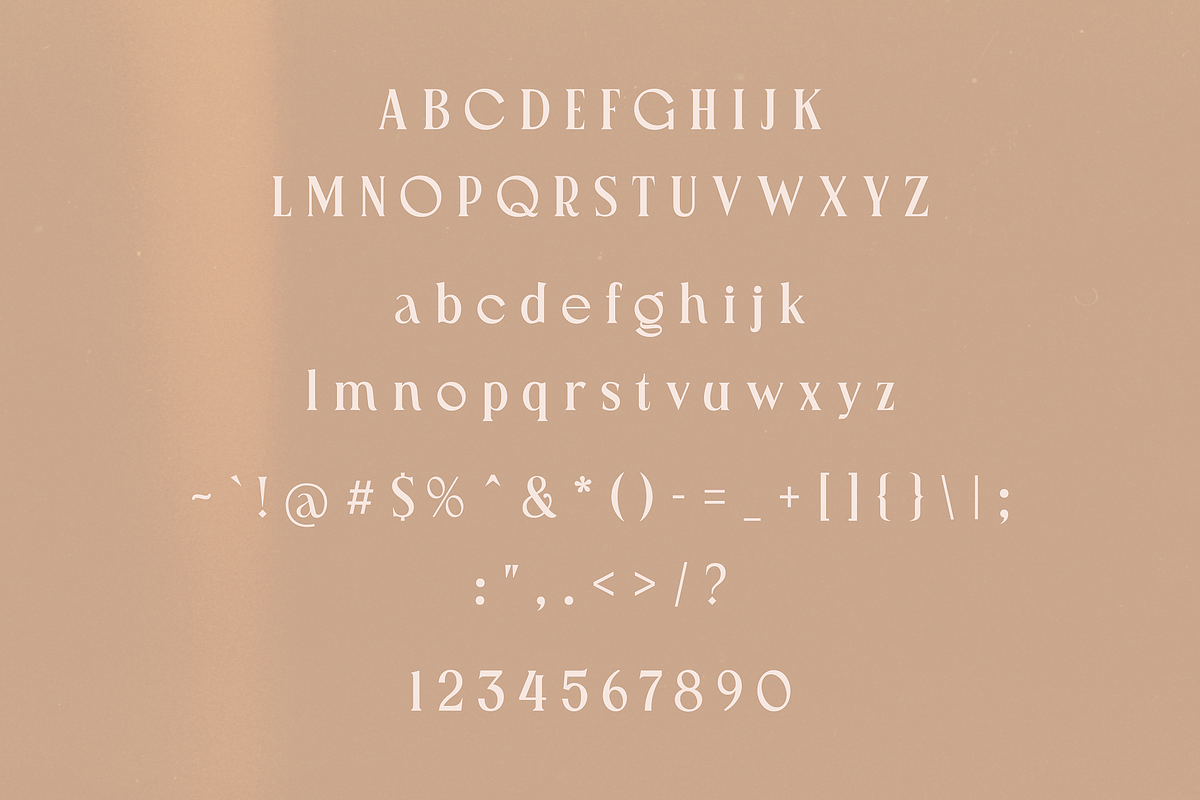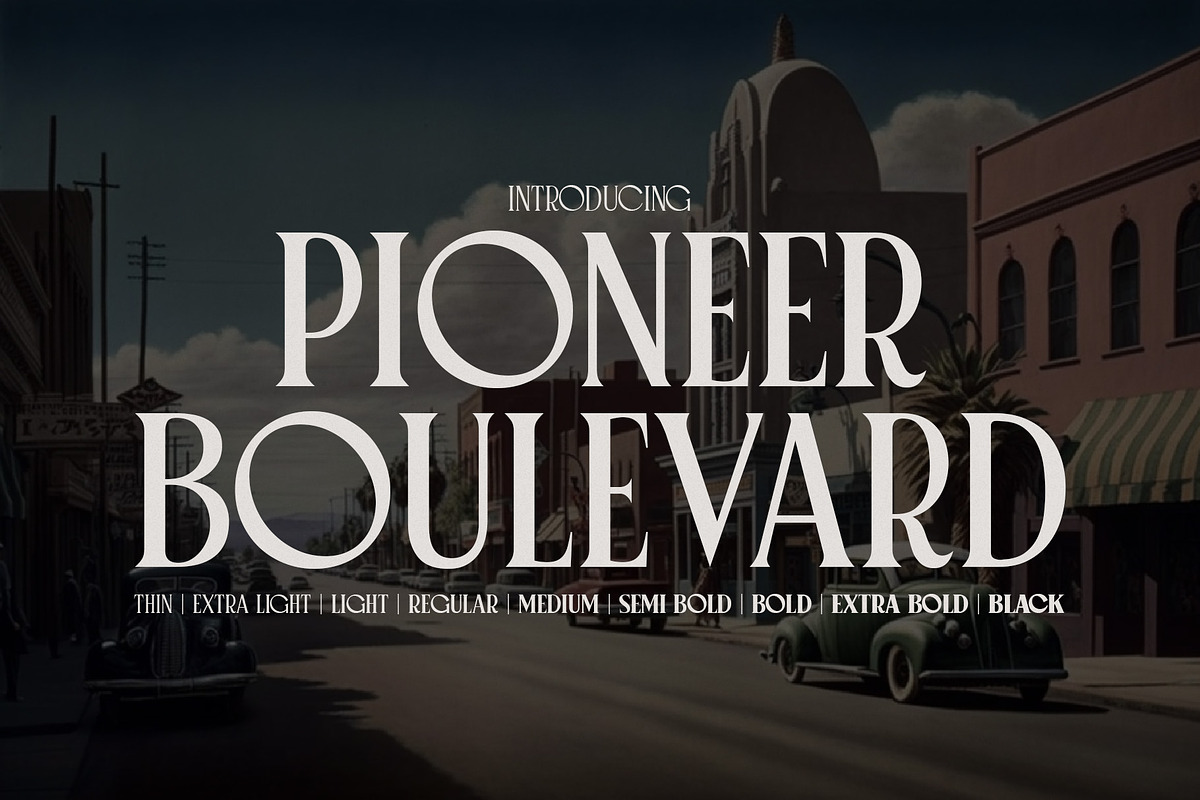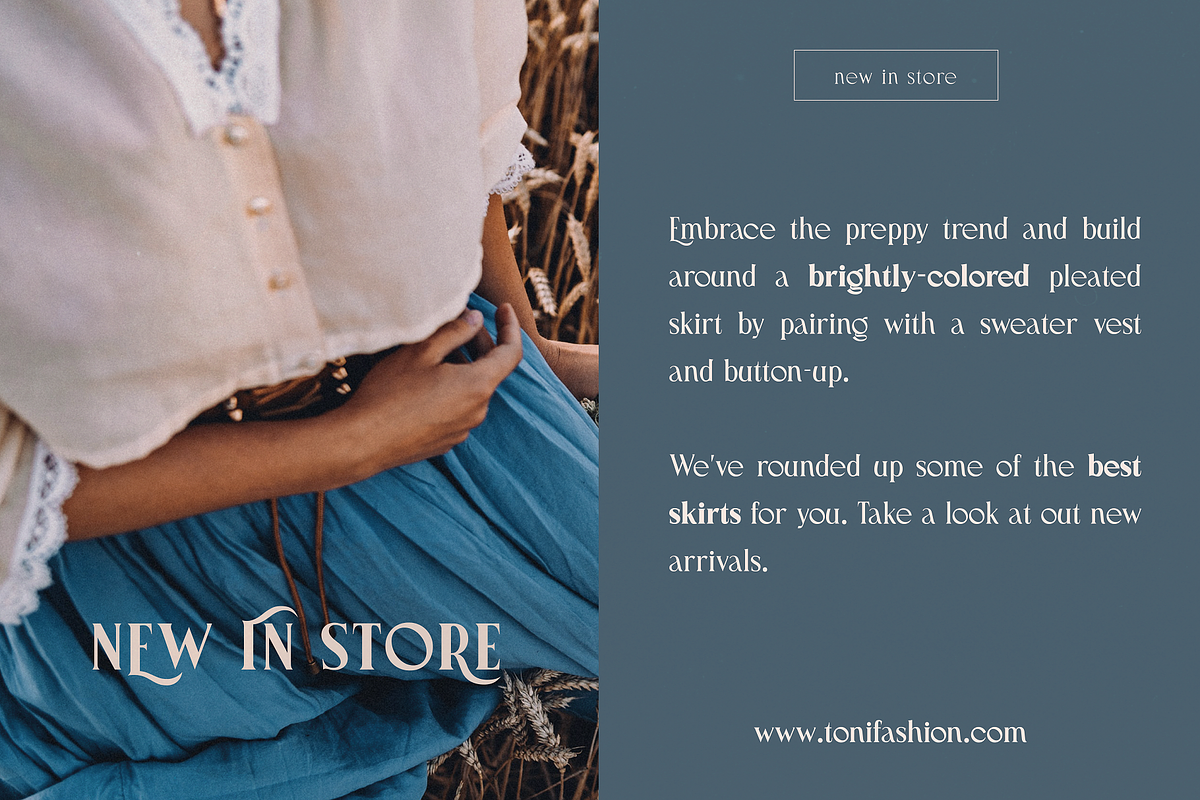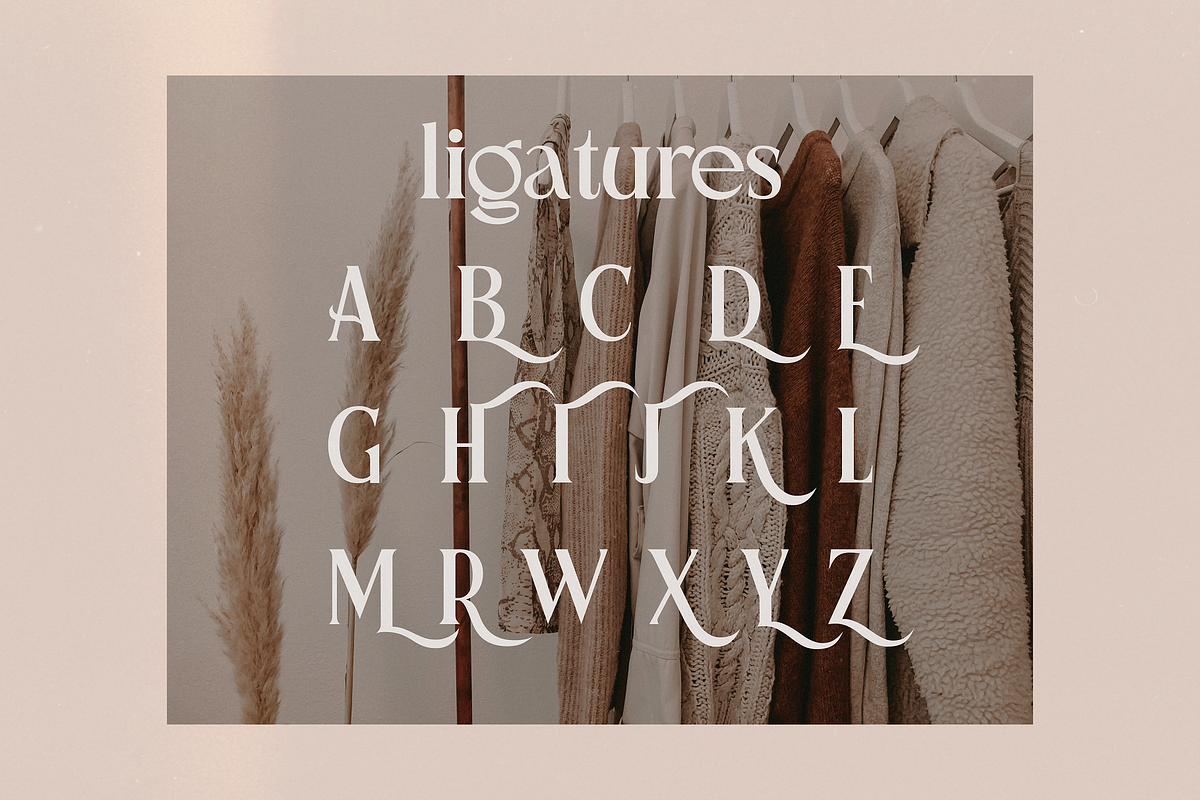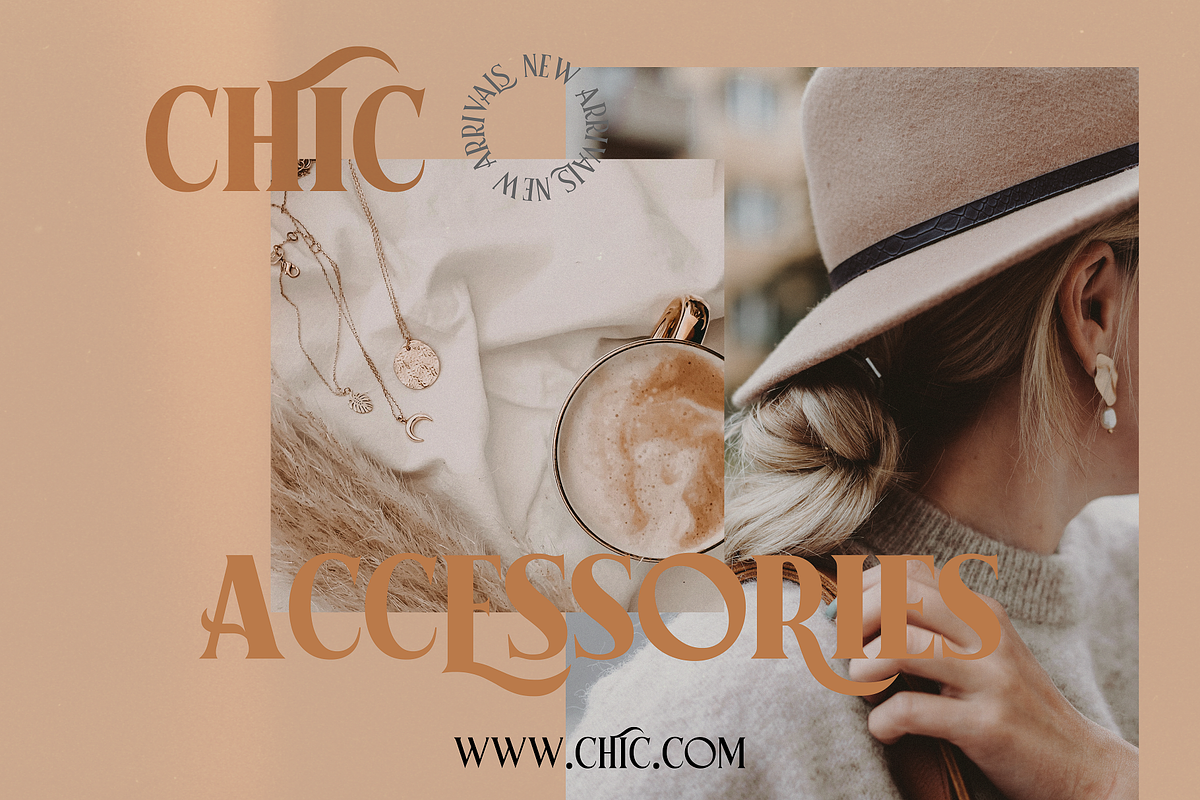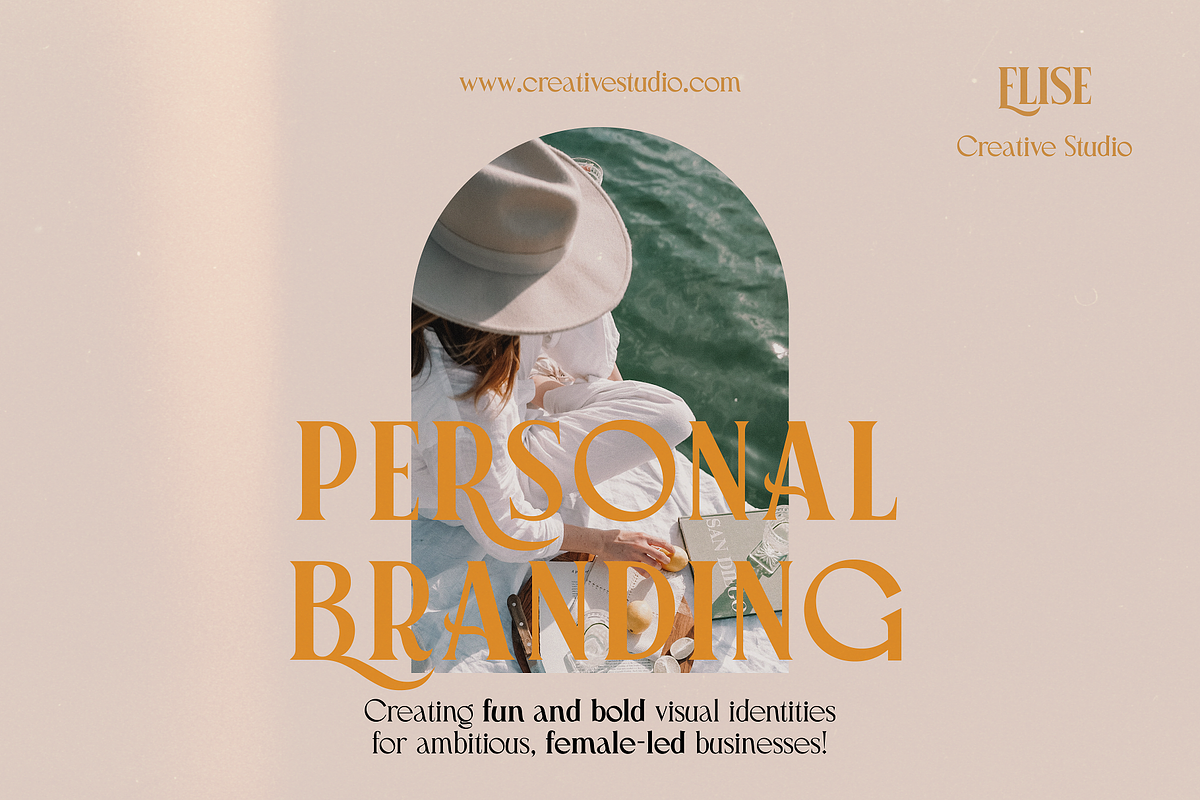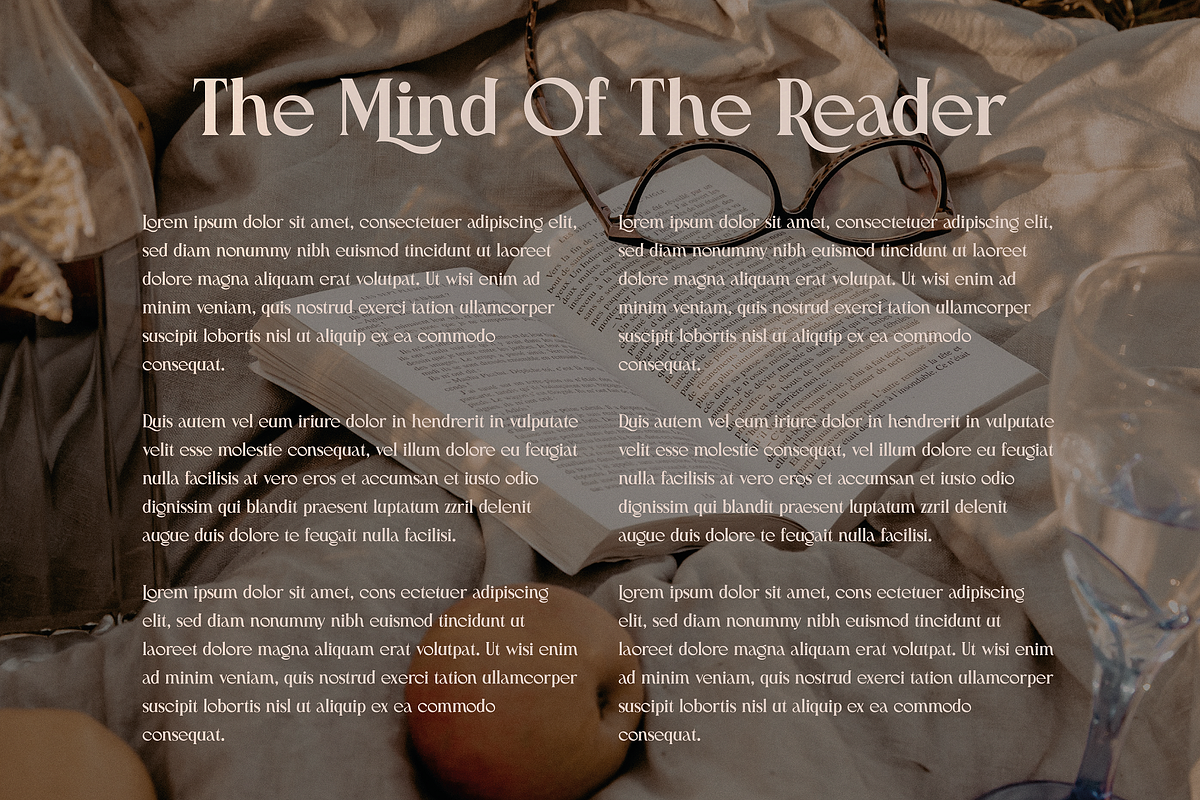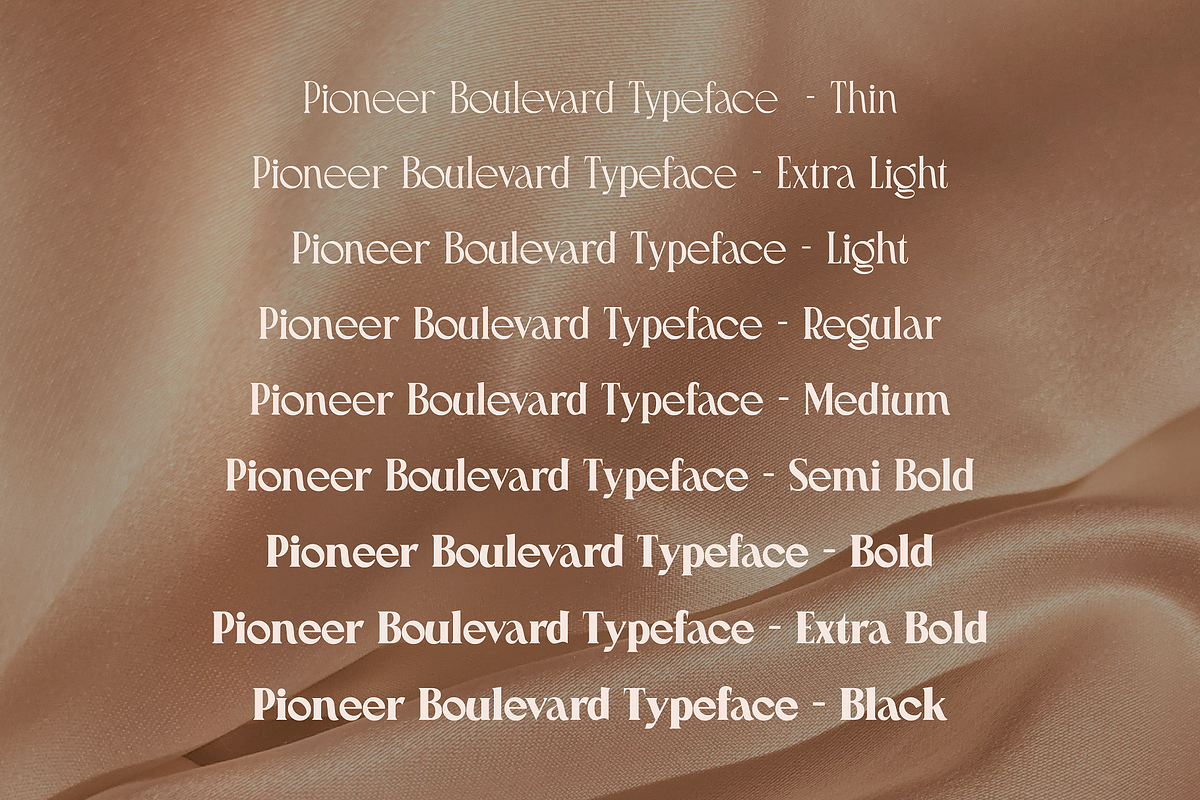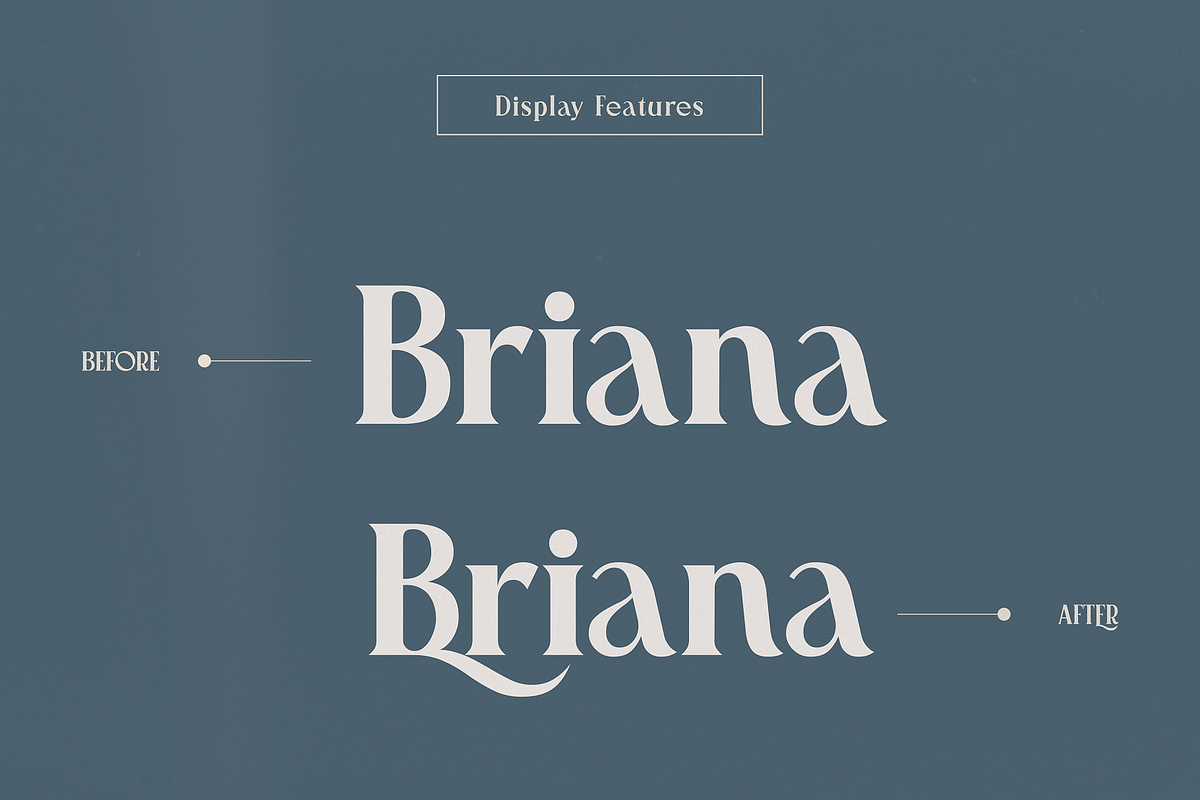
Pioneer Boulevard Typeface
Introducing Pioneer Boulevard, an elegant and vintage font that will transport you to a bygone era of sophistication and style. With 9 distinct weights to choose from, Pioneer Boulevard offers versatility and flexibility for any project, whether you're designing a logo, creating a print advertisement, or crafting an elegant website.
But Pioneer Boulevard is more than just a set of weights. The font also comes with beautiful additional ligatures that add character and charm to your designs, elevating them from ordinary to extraordinary. These ligatures are expertly crafted and seamlessly integrate into the font, making it easy to use and create beautiful designs.
And Pioneer Boulevard isn't just beautiful; it's also practical. The font is multilingual, making it perfect for designers who work on projects with an international audience. Whether you're designing for English, Spanish, French, or any other language, Pioneer Boulevard has got you covered.
Overall, Pioneer Boulevard is a timeless and versatile font that will add a touch of vintage elegance to any project. So why not give it a try and see how it can elevate your designs to the next level?